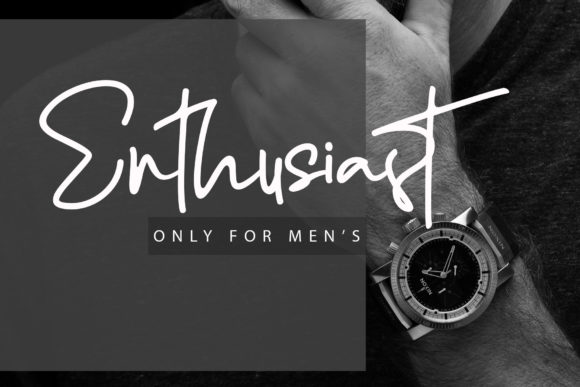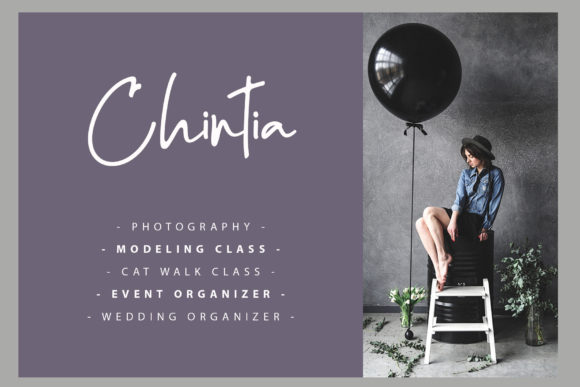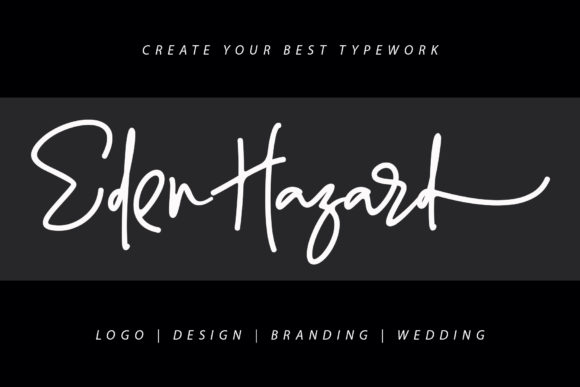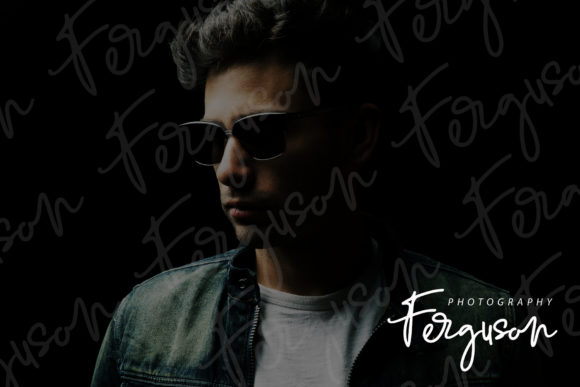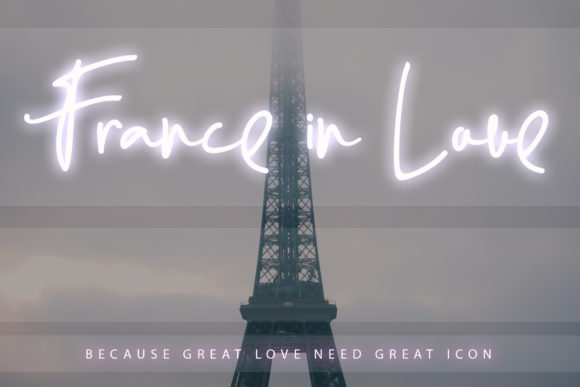
Introducing the Enthusiast Behavior Font: Elevate Your Designs with Elegance
Are you a designer or crafter looking for a typeface that exudes sophistication and style? Look no further than the Enthusiast Behavior Font. This simple yet classy font is perfect for adding a touch of elegance to your designs, making it ideal for a wide range of projects.
What is the Enthusiast Behavior Font?
The Enthusiast Behavior Font is a beautiful, script-type font that features beginning and ending swashes. These swashes add a level of sophistication and flair to your designs, making them perfect for projects where you want to make a statement. The font is highly versatile, allowing you to use it for a variety of applications, from watermarks and photography to signatures, logos, album covers, business cards, and quotes.
Key Features of the Enthusiast Behavior Font
- Simple yet classy design: The Enthusiast Behavior Font boasts a clean and elegant design that will elevate your projects and give them a professional look.
- Beginning and ending swashes: The font features beautiful swashes that add a touch of sophistication to your designs, making them perfect for titles, headings, and emphasis.
- Highly versatile: The Enthusiast Behavior Font can be used for a wide range of projects, including watermarks, photography, signatures, logos, album covers, business cards, quotes, and more.
- Easily customizable: The font is easy to customize, allowing you to adjust the size, color, and style to fit your design needs.
Uses for the Enthusiast Behavior Font
The Enthusiast Behavior Font is perfect for designers and crafters who want to add a touch of elegance to their projects. Here are some ideas for using this beautiful font:
- Watermarks: Add a professional touch to your photos and designs with a custom watermark featuring the Enthusiast Behavior Font.
- Photography: Use the font to create beautiful titles and captions for your photos, adding a level of sophistication to your portfolio.
- Signatures: Create a custom signature featuring the Enthusiast Behavior Font, perfect for adding a personal touch to your designs and documents.
- Logos: Use the font to create a unique and memorable logo for your business or brand.
- Album covers: Create a stunning album cover featuring the Enthusiast Behavior Font, perfect for musicians and music producers.
- Business cards: Add a touch of elegance to your business cards with a custom design featuring the Enthusiast Behavior Font.
- Quotes: Use the font to create beautiful quote graphics, perfect for sharing on social media or using in your designs.
Why Choose the Enthusiast Behavior Font?
With so many fonts available, why choose the Enthusiast Behavior Font? Here are just a few reasons:
- Unique and stylish: The Enthusiast Behavior Font is a unique and stylish typeface that will set your designs apart from the crowd.
- Easily readable: Despite its elegant design, the font is highly readable, making it perfect for use in a variety of applications.
- High-quality: The font is of high quality, ensuring that it will look great in your designs and projects.
| Font Name | Enthusiast Behavior Font |
| Author | aldedesign |
The Enthusiast Behavior Font is a beautiful and versatile typeface that is perfect for designers and crafters looking to add a touch of elegance to their projects. With its simple yet classy design, beginning and ending swashes, and high level of customizability, this font is sure to become a staple in your design toolkit. Whether you’re creating watermarks, photography titles, signatures, logos, album covers, business cards, or quotes, the Enthusiast Behavior Font is the perfect choice.